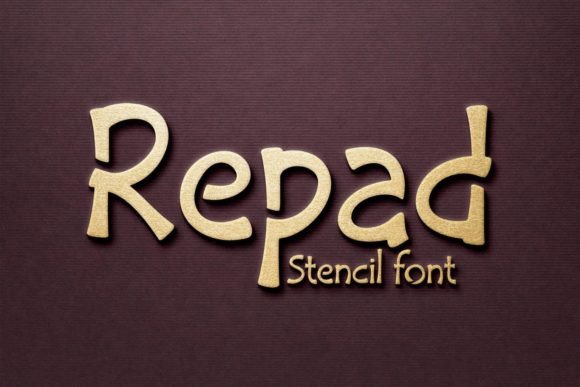
Are you on the hunt for the perfect font that will make your designs stand out from the crowd? Look no further than Repad Stencil Font, created by the talented team at Digital Typeface Studio. This font is not your average display font - it's fun, it's quirky, and it's guaranteed to catch the eye of anyone who lays their gaze upon it.
One of the standout features of Repad Stencil Font is its versatility when it comes to different applications. Whether you're using a laser, engraver, or any other machine, this font is a flawless choice. Why, you ask? Because Repad Stencil Font is specifically designed to have no closed loops on the characters. This means that every single letter and symbol will be effortlessly reproduced, maintaining the integrity of the design throughout the manufacturing process.
But Repad Stencil Font is not just a practical choice - it's a font that evokes emotion and captivates the imagination. Its playful and unique design adds a touch of whimsy to any project, making it perfect for those who want to inject a sense of fun into their work. Whether you're designing invitations, creating signage, or even crafting a memorable logo, Repad Stencil Font is sure to leave a lasting impression on anyone who sees it.
Furthermore, Repad Stencil Font is not just about aesthetics - it's also incredibly user-friendly. With its clear and legible characters, you can rest assured that your message will be communicated effectively, without any confusion. This font is all about making a statement and ensuring that your words are heard loud and clear.
So, why wait? Take your designs to the next level with Repad Stencil Font. With its charming and quirky style, its compatibility with various machines, and its ability to convey messages with clarity, this font is truly a game-changer. Don't settle for ordinary - choose the best font for stencil letters and let your creativity soar.